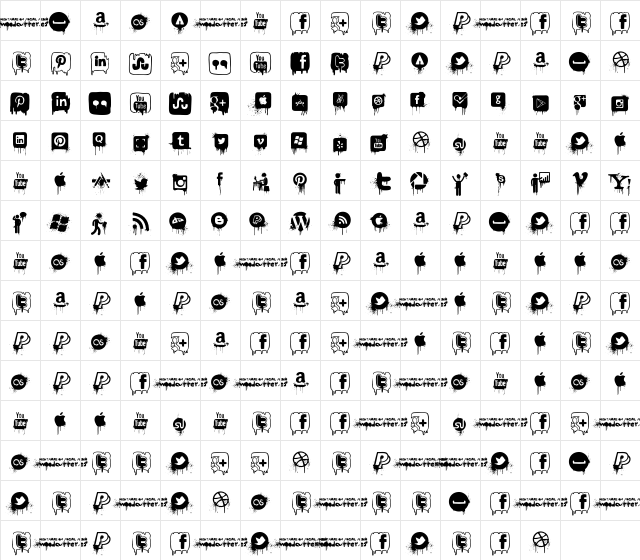
Complete nightmare on Social Media Regular glyph index. Displaying only characters natively supported by nightmare on Social Media Regular font.
nightmare on Social Media is a composed and adaptable typeface that performs quietly and consistently across a wide range of design contexts.